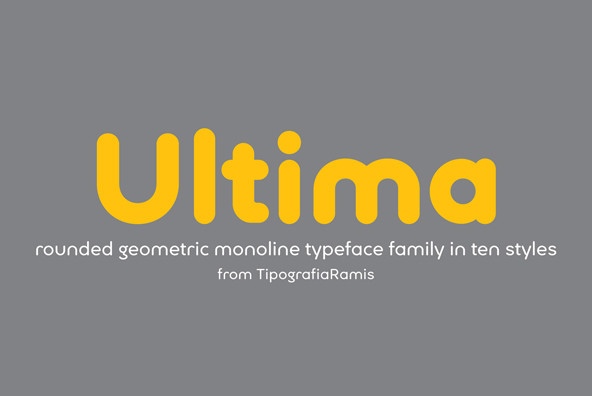
Ultima Font
Ultima Font is perfect for ultimate luxury branding, premium finale events, championship celebration materials, supreme achievement campaigns, pinnacle performance marketing, final destination promotions, ultimate gaming experiences, and definitive advertising projects. This supreme typeface works magnificently in both digital applications and print media where ultimate excellence and final achievement are fundamental design requirements.
What makes Ultima Font so exciting is its commanding interpretation of supreme achievement and ultimate excellence through powerful letterforms that embody the same uncompromising quality and definitive authority that defines the pinnacle of human accomplishment and the final word in luxury experiences. The font features supreme characters with ultimate proportions, definitive curves, and championship details that communicate unparalleled excellence, supreme authority, and the ultimate standard that represents the absolute pinnacle of quality and achievement. Its supreme personality and championship heritage make it ideal for luxury brands seeking to establish ultimate authority while appealing to discerning audiences who accept nothing less than the absolute best and ultimate in quality experiences.
The Ultima Font family includes comprehensive weight variations with different supremacy levels, along with championship alternates and ultimate ornamental elements. Each style maintains the typeface's supreme character while offering extensive character sets including championship numerals, ultimate punctuation marks, and special symbols designed to enhance supreme communications and definitive branding efforts across various pinnacle contexts.
This extraordinary typeface represents the perfect convergence of ultimate excellence and contemporary typography for luxury and championship industries. Whether you're developing supreme luxury brand identities, creating championship celebration materials, or designing ultimate experience campaigns, Ultima Font Free Download delivers the definitive authority and versatility needed to establish the ultimate standard. The font's supreme appeal makes it particularly effective for luxury brands, championship organizations, ultimate gaming companies, and businesses representing the absolute pinnacle of quality and the final word in excellence.
The meticulously engineered supreme construction and optimized ultimate performance in Ultima Font ensure maximum definitive impact while maintaining clear communication across all championship applications. Its commanding presence makes it ideal for ultimate branding, supreme marketing materials, and definitive communications where its full championship character can create unforgettable impressions and establish immediate association with ultimate excellence, supreme quality, and the definitive standard that represents the absolute pinnacle of achievement and luxury experience.